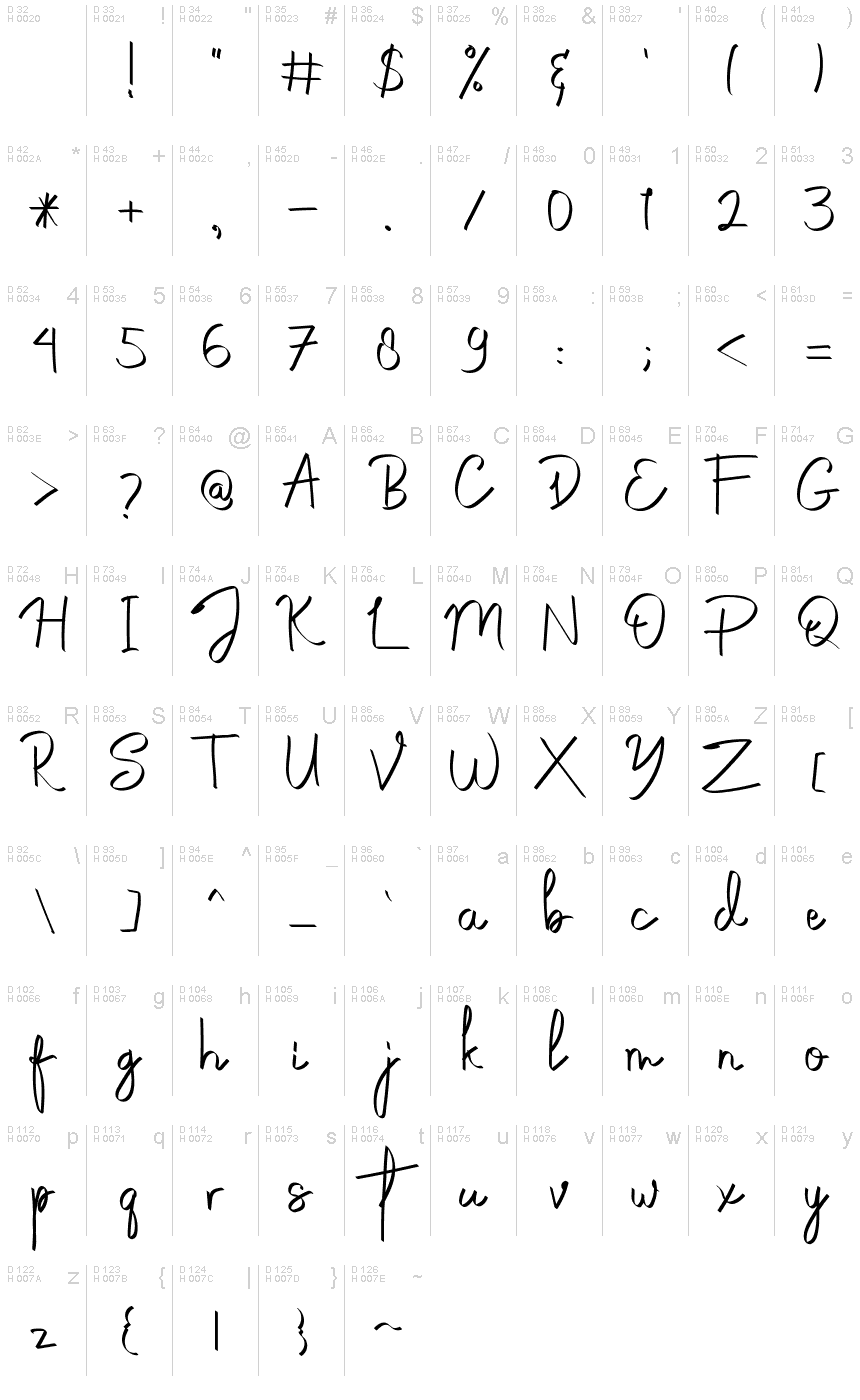
Burlington
Burlington, a captivating handwritten font by Nashru Studio, adds a touch of elegance to any project. With its semi-light weight, this font effortlessly blends sophistication and informality. Ideal for wedding invitations, branding materials, and product packaging, Burlington exudes creativity and charm. Its flowing strokes and unique character set make it perfect for fashion editorials or lifestyle blogs. Infuse your designs with a sense of whimsy and grace using Burlington's graceful curves and versatile nature. Let this font bring your projects to life with its delightful handwritten style.